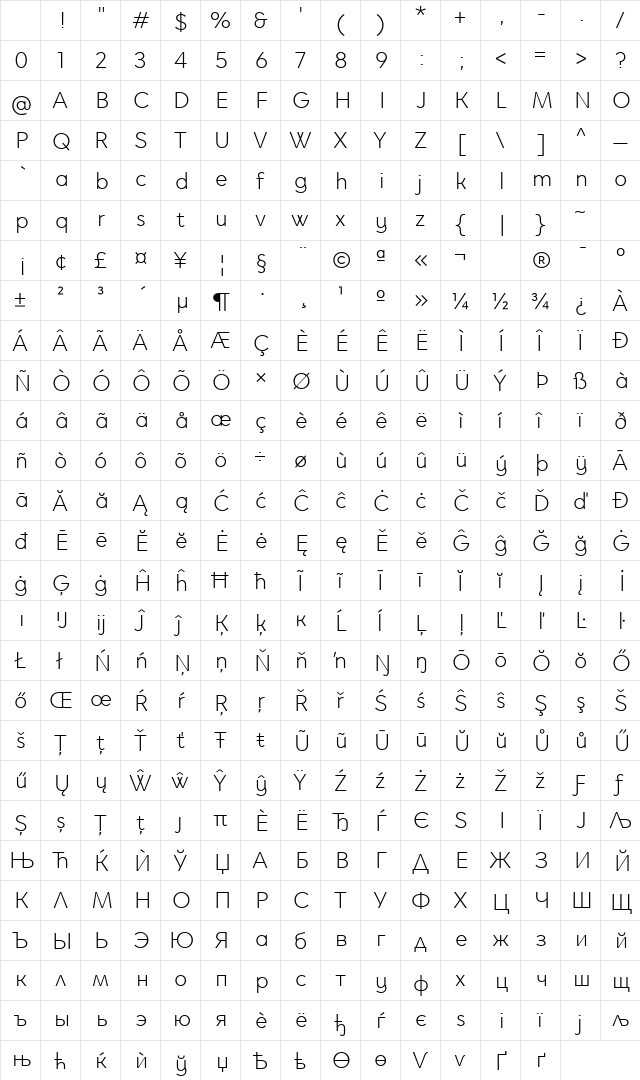
Clother Light is a composed and adaptable typeface that performs quietly and consistently across a wide range of design contexts. Its slender proportions lend an understated elegance to any composition.